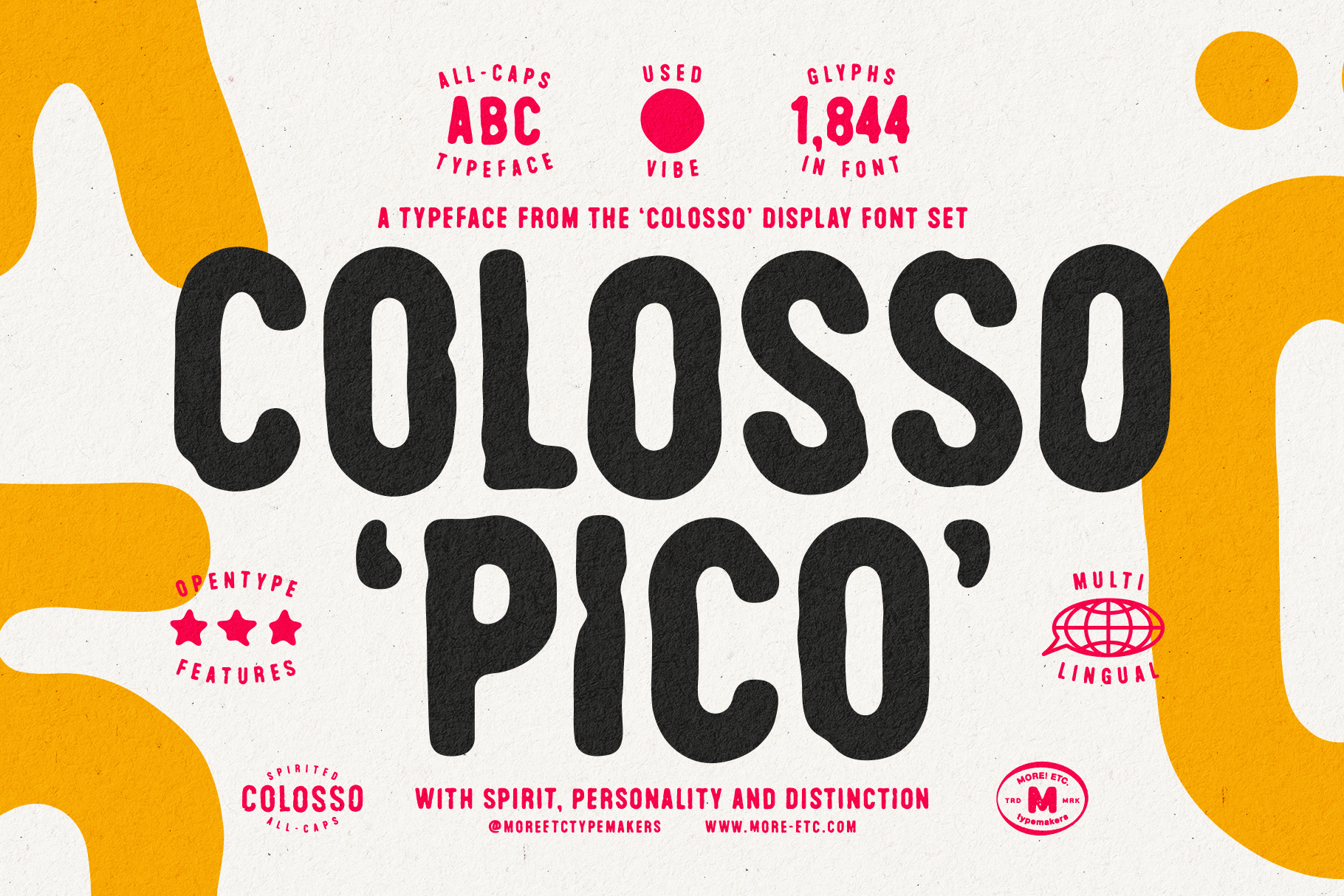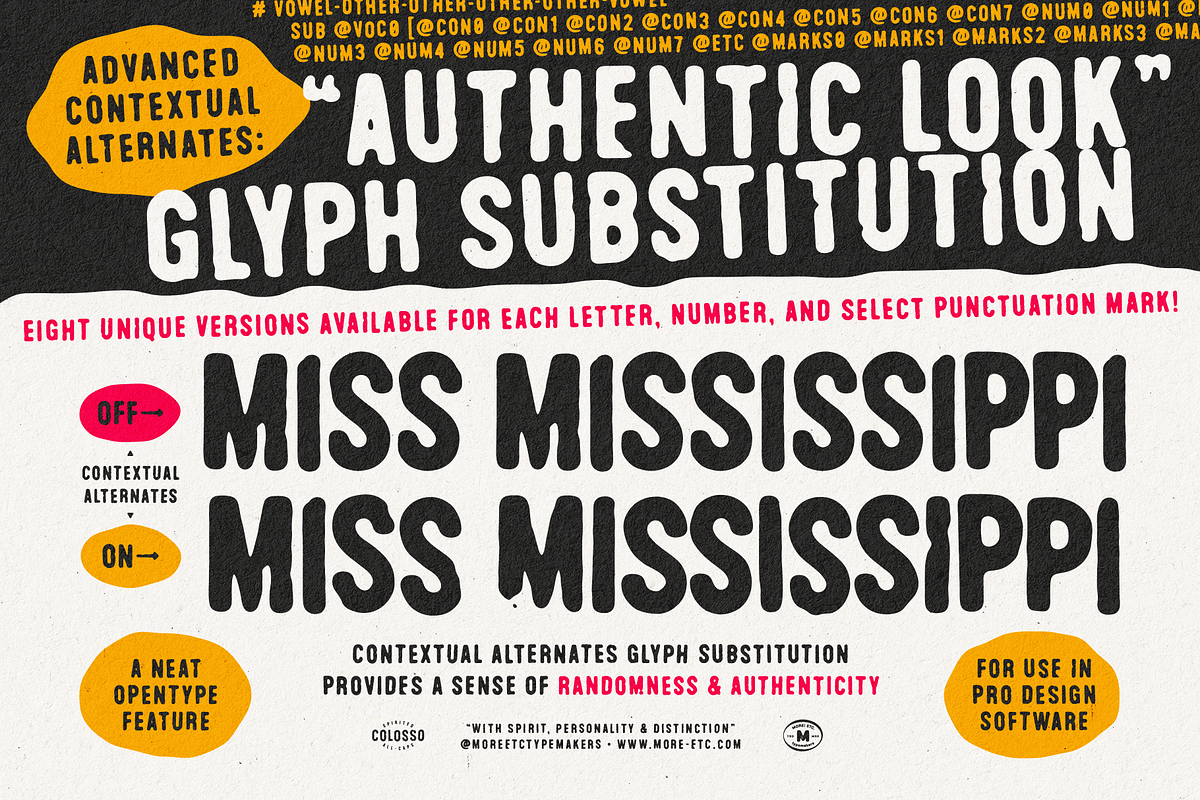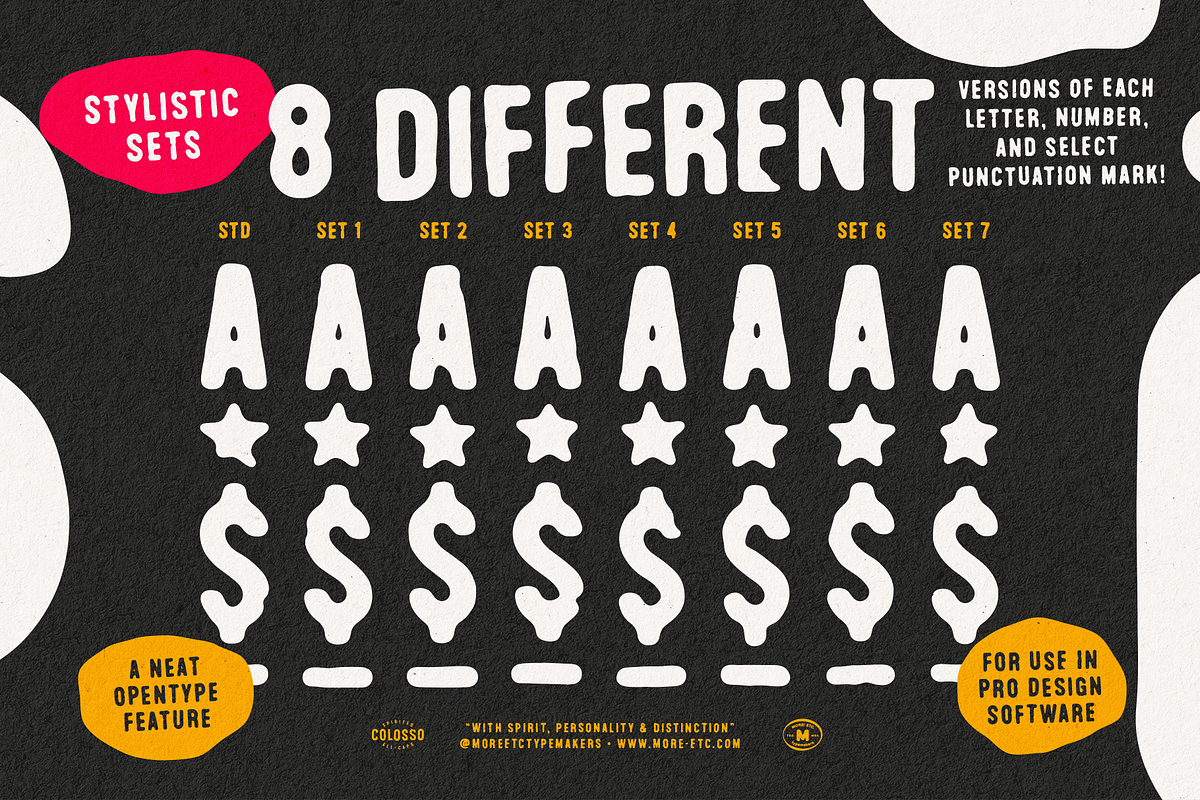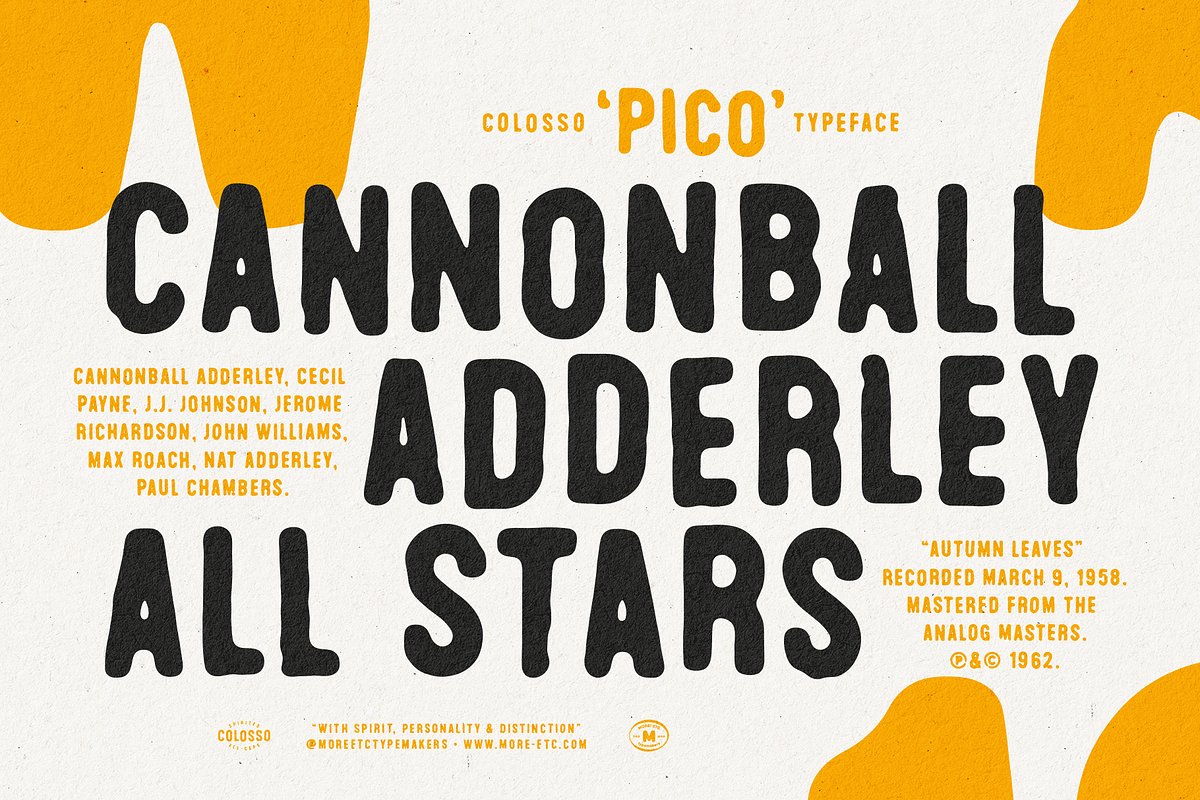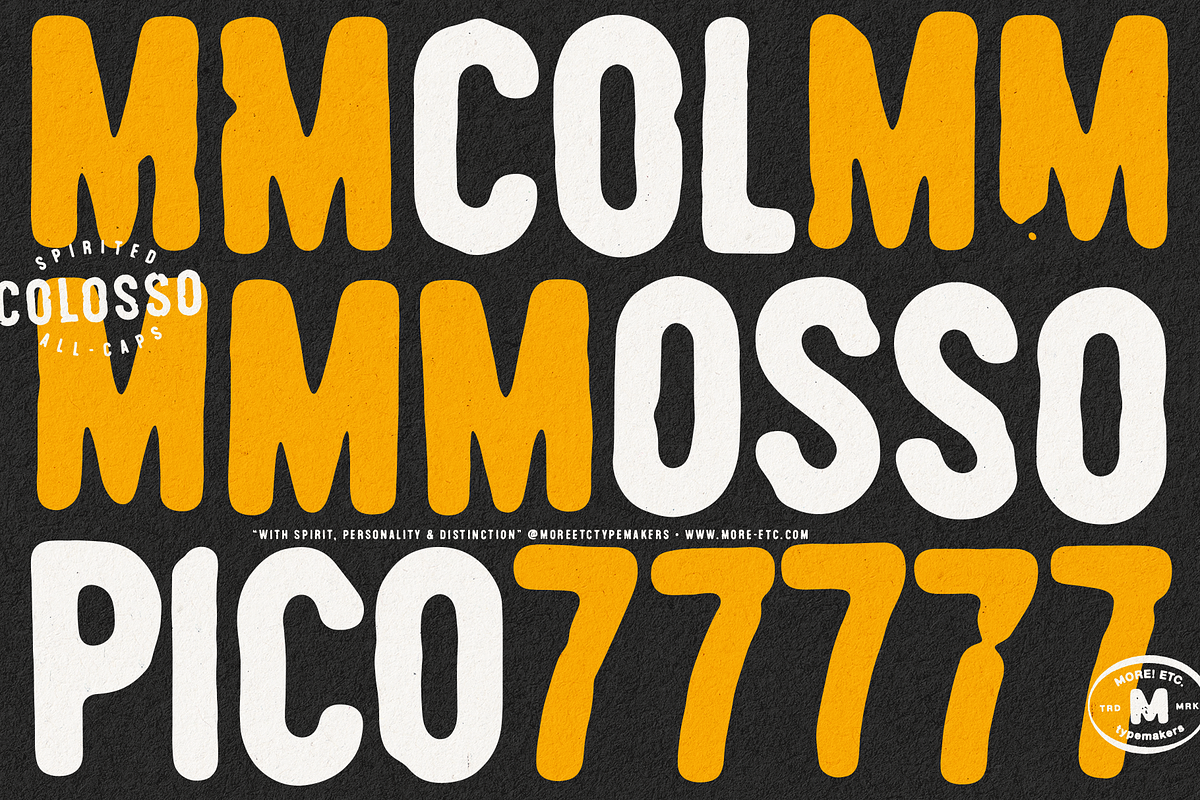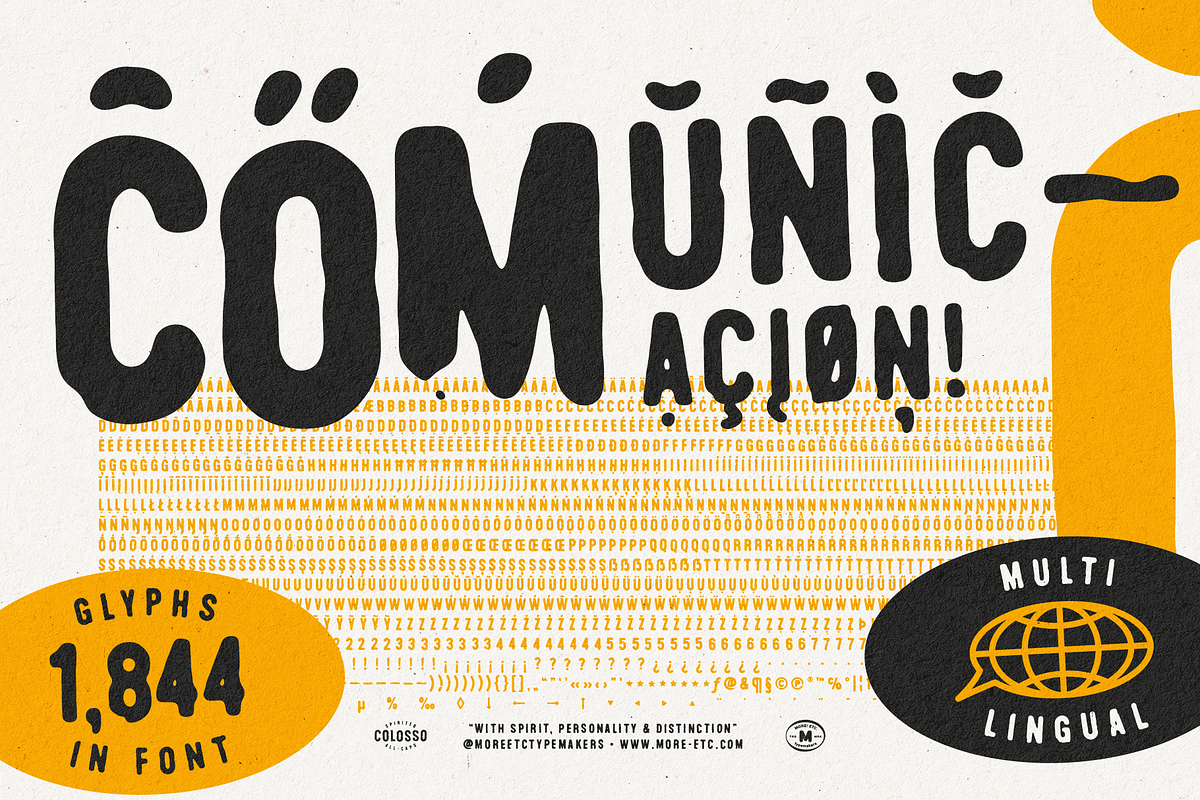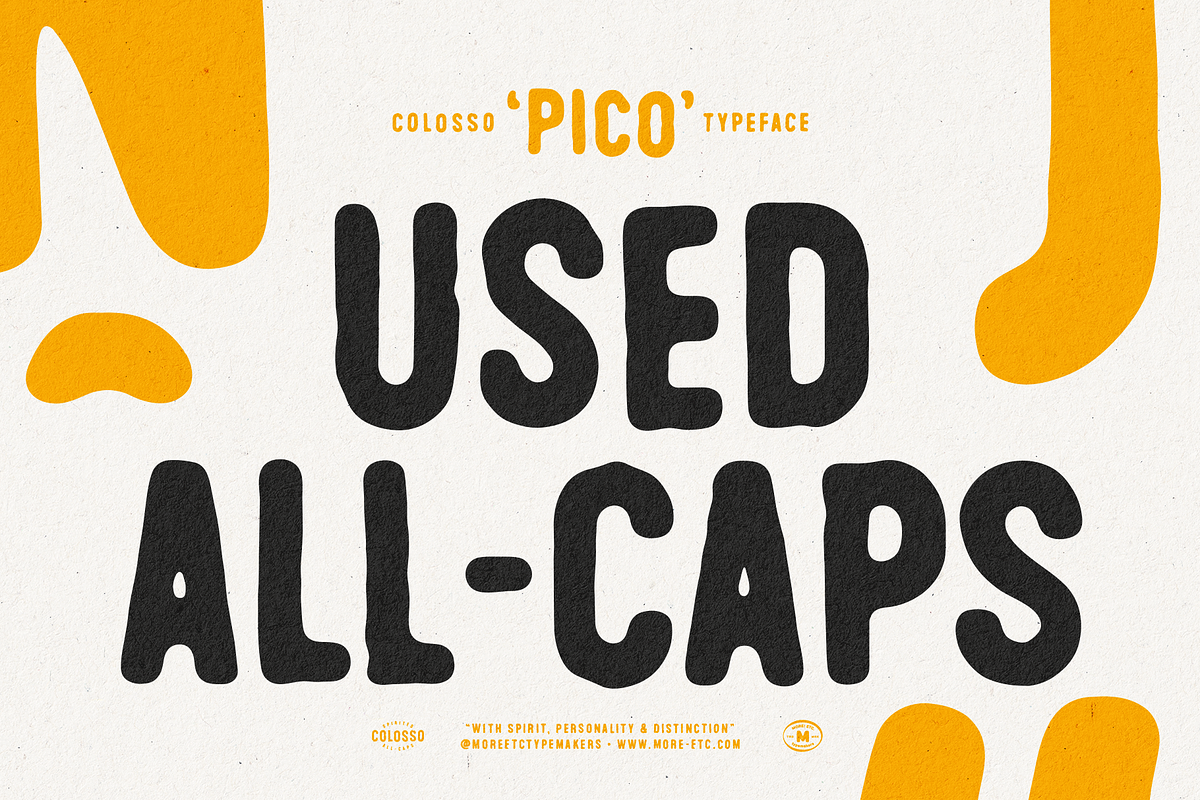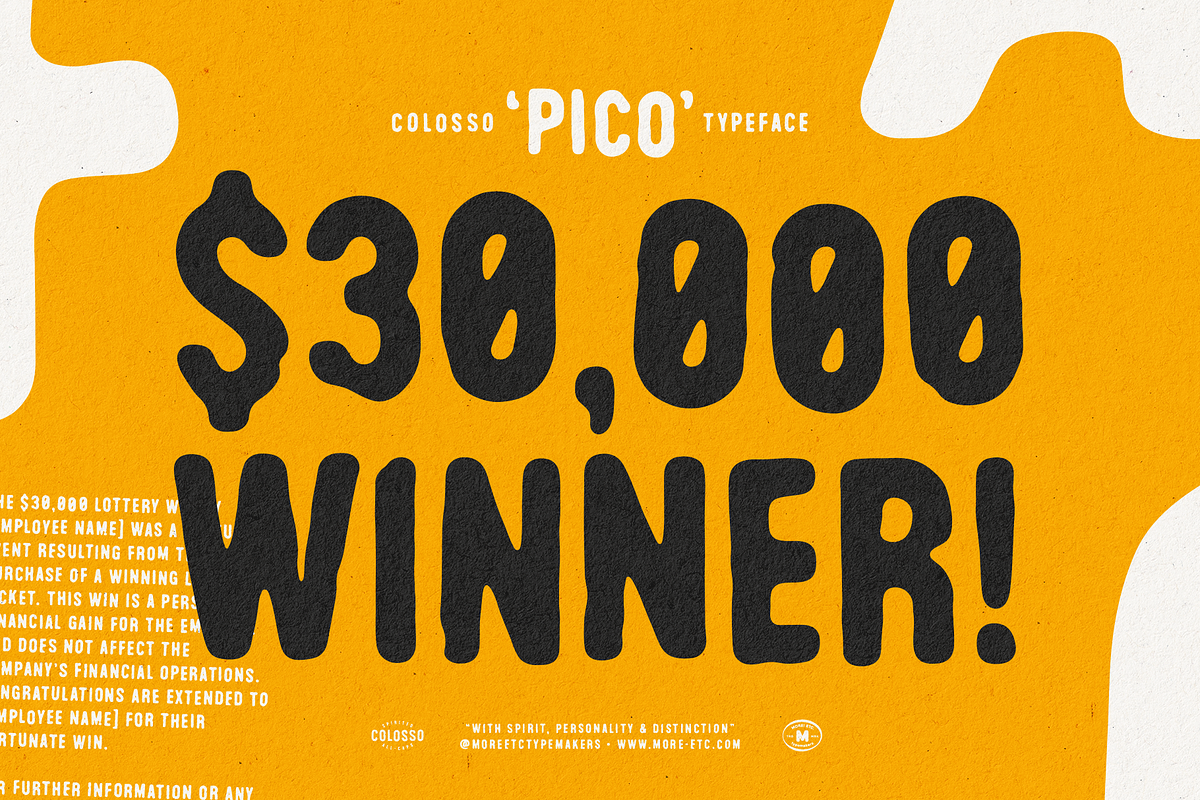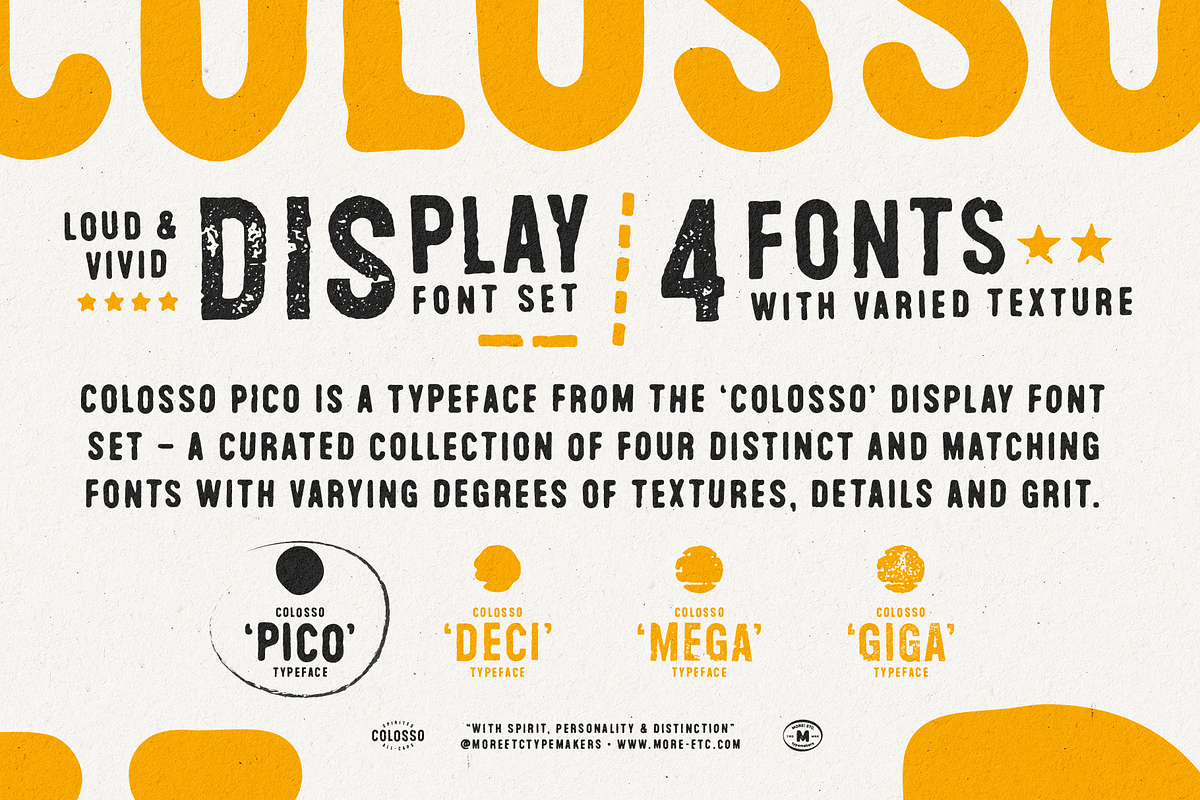
Colosso Pico Display Font
Colosso pico is a typeface from the Colosso’ Display Font Collection – a curated collection of four distinct and matching fonts with varying degrees of textures, details and grit.
Step into the world of 'Colosso,' a collection of all-caps display fonts that transform typography into an artistic masterpiece. Drawing inspiration from the rich legacy of transfer lettering and vintage printing techniques, this collection is a tribute to the human imperfections inherent in handcrafted printmaking. It embraces the DIY aesthetics reminiscent of old fanzines, echoes the typographic expressions found in mid-century artworks, and channels the rebellious spirit of vintage punk flyers. Immerse yourself in the analogue authentic look of these typefaces – a purposeful departure from the sterile precision of computer-made fonts. Welcome to 'Colosso,' where every character is a bold statement in the art of display font design.
Colosso Pico – Used vibe with personality
Resembling photocopied fine-print text that's been enlarged, 'Pico' exudes an old-school smooth aesthetic with a used look. Ideal for slightly smaller text sizes, it brings a touch of personality to projects that demand a refined, classic vibe.
OpenType – Advanced Contextual Alternates
Unlocking a realm of design possibilities, the 'Colosso' Font Family introduces an innovative OpenType feature – Advanced Contextual Alternates. Within this feature, all four fonts in the collection showcase a dynamic and advanced OpenType capability. Each letter, number, and select punctuation mark boasts 7 alternate glyphs, providing a total of 8 unique variations for every character. Activating the Contextual Alternates feature (calt) in your OpenType-friendly application triggers a captivating cycle through classes of vowels, consonants, numbers, and marks. This results in a delightful interplay of characters, introducing a sense of randomness and infusing an unparalleled authenticity into your design projects. Witness your creations come alive with an organic, ever-changing rhythm, courtesy of this neat feature.
The 'Colosso' Font Family boasts an extensive set of diacritics, catering to a wide array of Latin languages. Break language barriers with support for 285 languages, making 'Colosso' your truly global companion in creative expression.
Why 'Colosso'?
This font collection transcends conformity; it's about standing out. With a focus on authenticity, passion, and personality, 'Colosso' is the choice for designers who refuse to settle for the ordinary. Each character in this collection is a testament to the power of distinctive, genuine expression in the world of design.